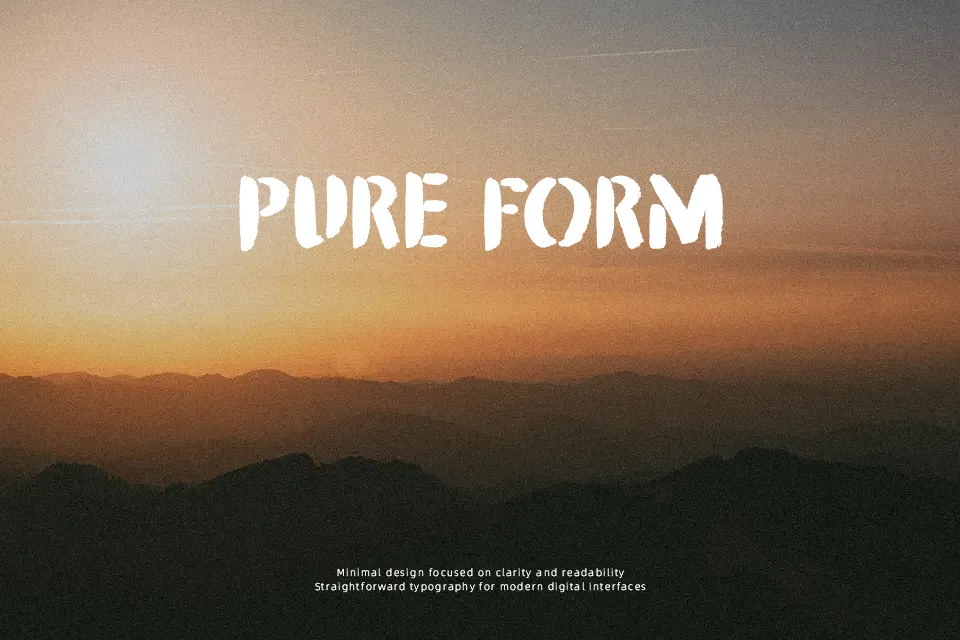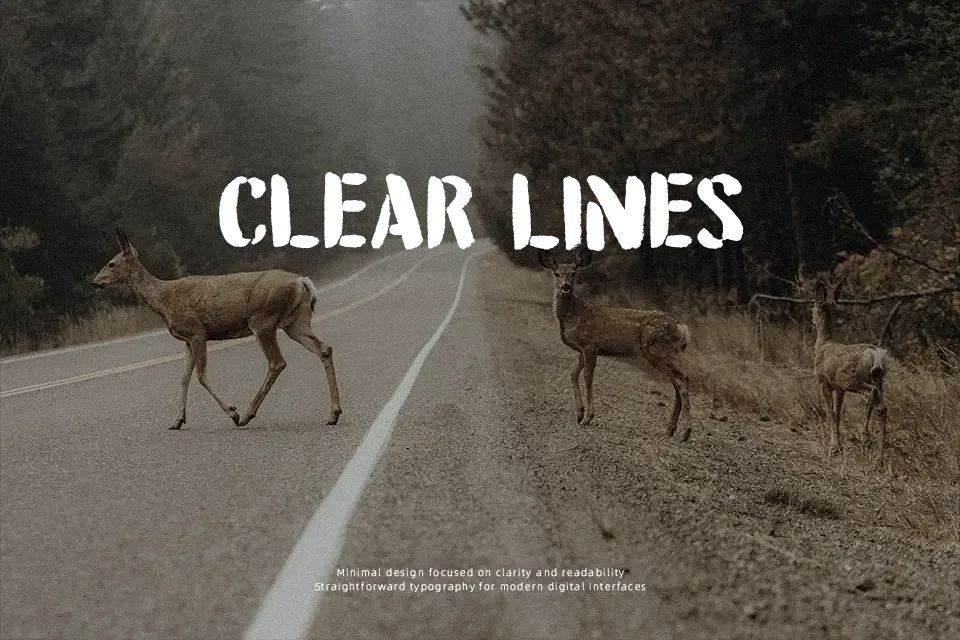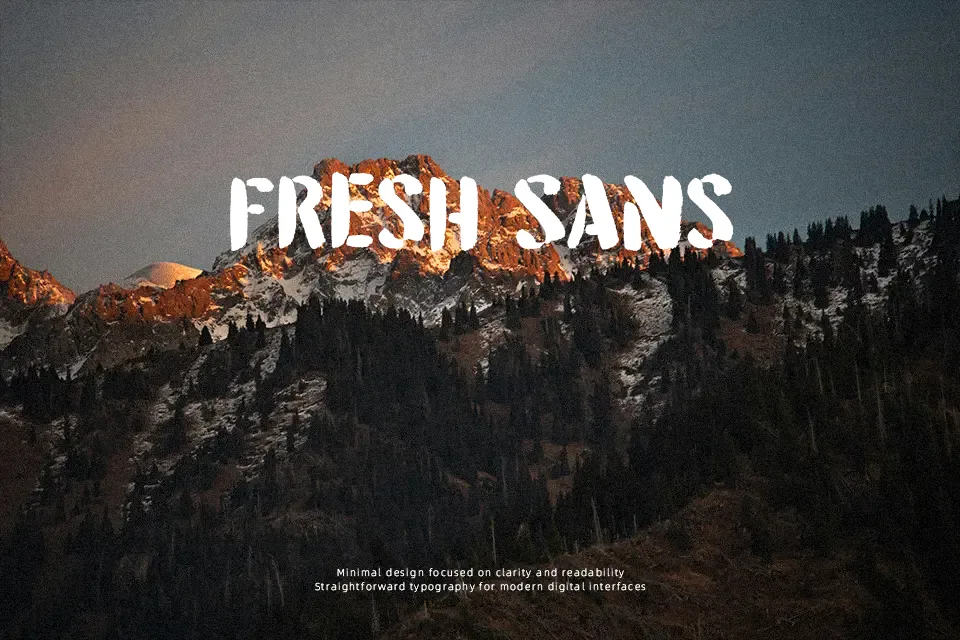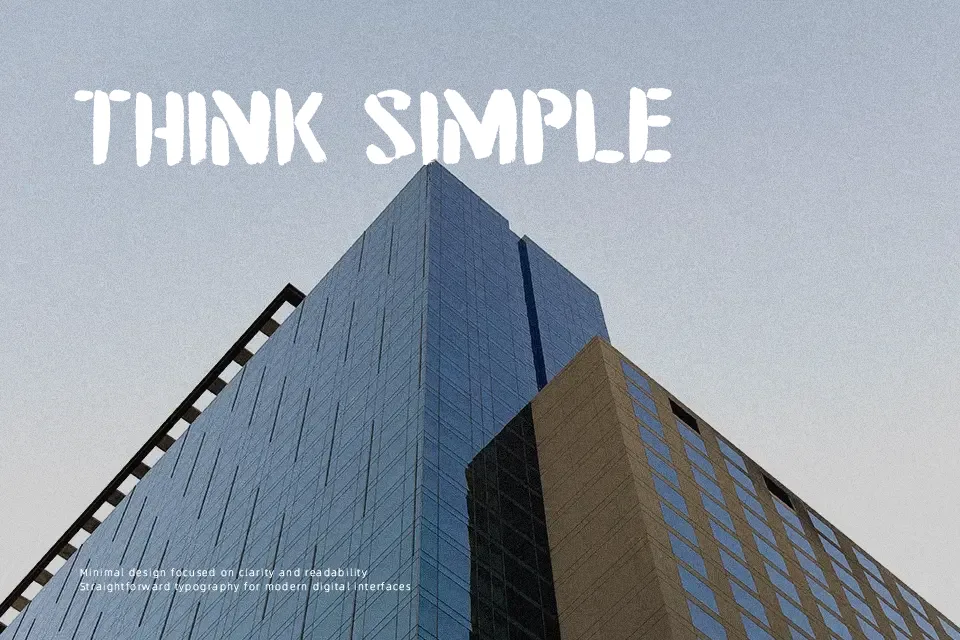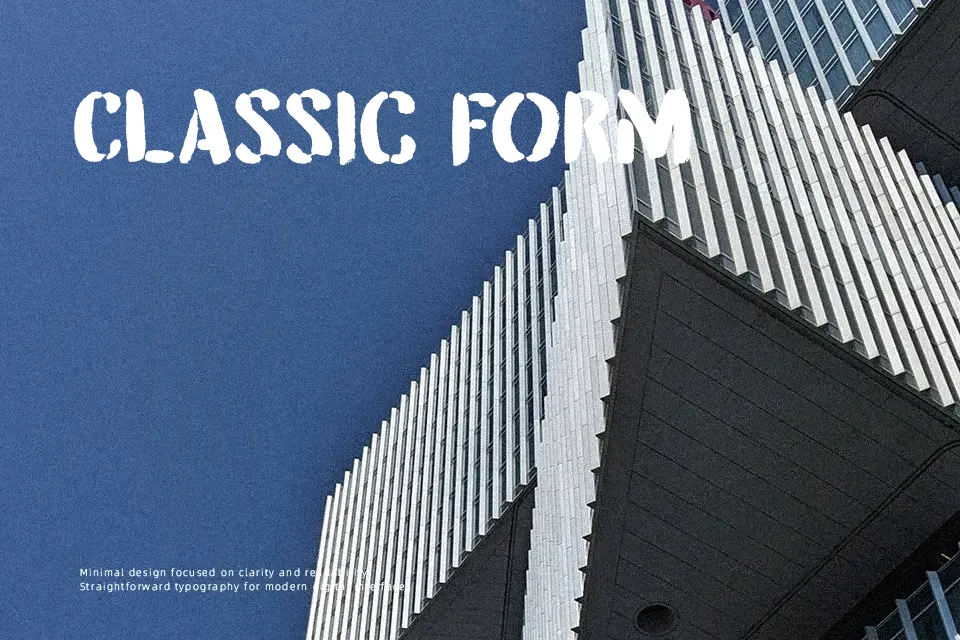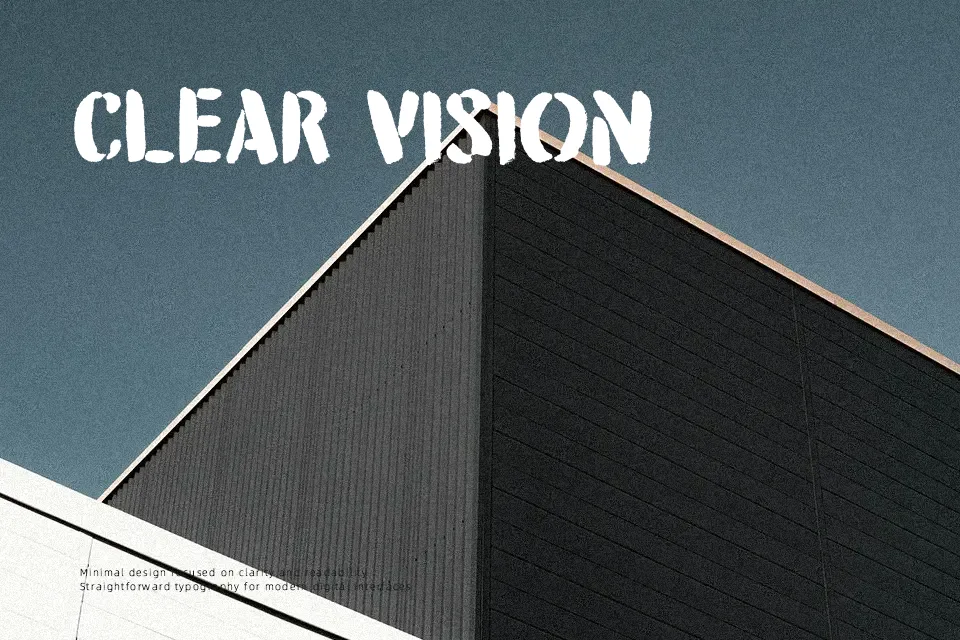
DK Attention Seeker Font
Designed by David Kerkhoff
DK Attention Seeker leans on classic stencil construction, but the edges are roughened and slightly irregular, which keeps it from feeling military-clean. The uppercase forms are heavy, narrow, and tightly packed, with cut-out gaps that create a loud rhythm across a line. On a rally poster, streetwear graphic, or music event teaser, it catches the eye fast and adds urgency without looking polished. I would keep it for short bursts of text, though; in smaller captions, website UI, or any paragraph setting, the dense spacing and broken counters slow reading more than they help.
Perfect for advertising, branding, and headline, with a bold and decorative style.